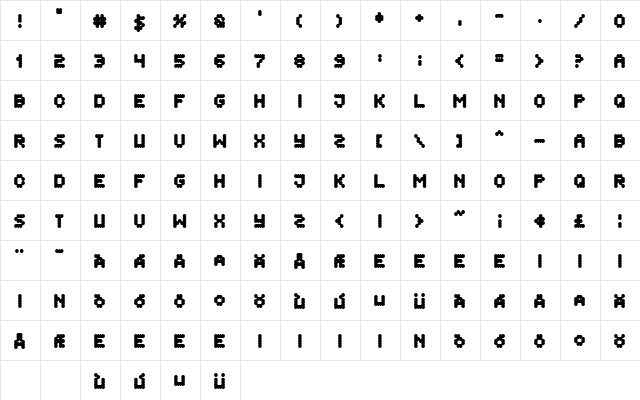
Flytningar Svulstiga Regular
Design Context for Flytningar Svulstiga Typeface
Flytningar Svulstiga is a composed and adaptable typeface that performs quietly and consistently across a wide range of design contexts.